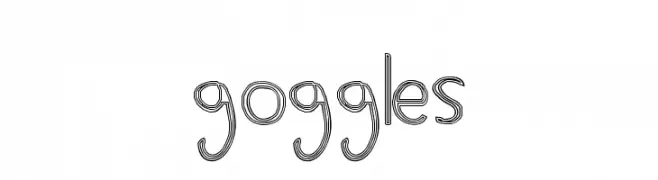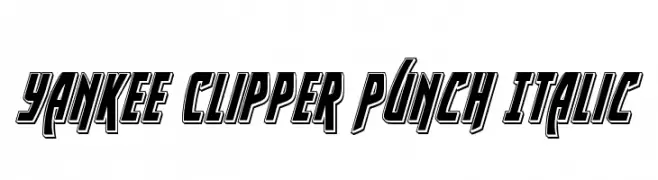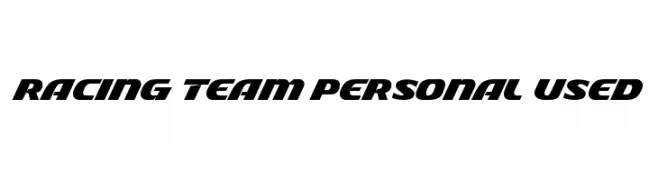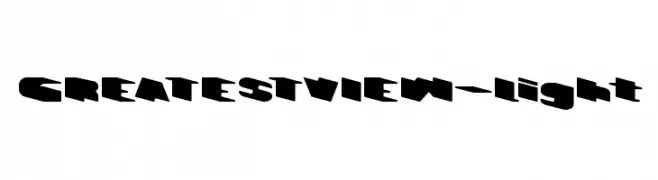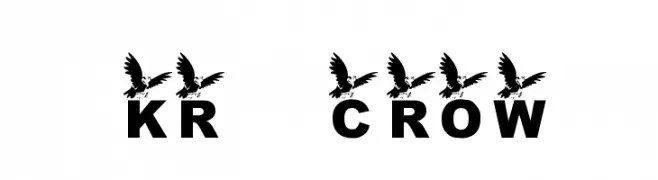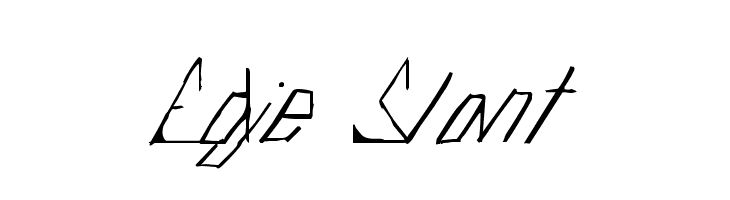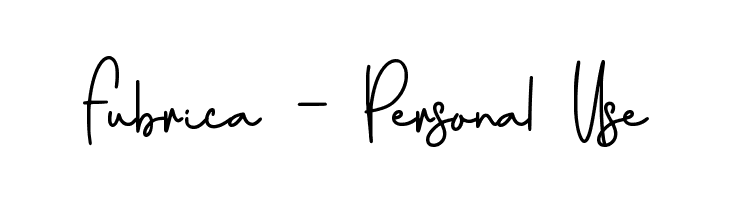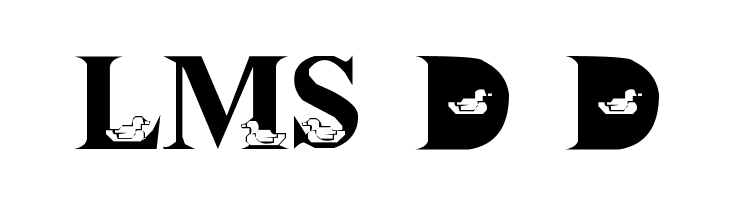
A playful, double-line font with a hand-drawn, whimsical style.
A bold, geometric font with a futuristic and industrial style.
Whimsical pictogram font with abstract and stick-figure characters.
A bold, italicized font with strong outlines and dynamic angles.
A playful, brush-like font with a hand-drawn appearance.
Bold, italicized sans-serif font with a dynamic style.
A bold, extra-condensed font with thick, uniform strokes.
A bold, italic font with a dynamic and modern style.
A bold, dynamic font with a futuristic and edgy style.
A bold, decorative font with crow silhouettes for each letter.